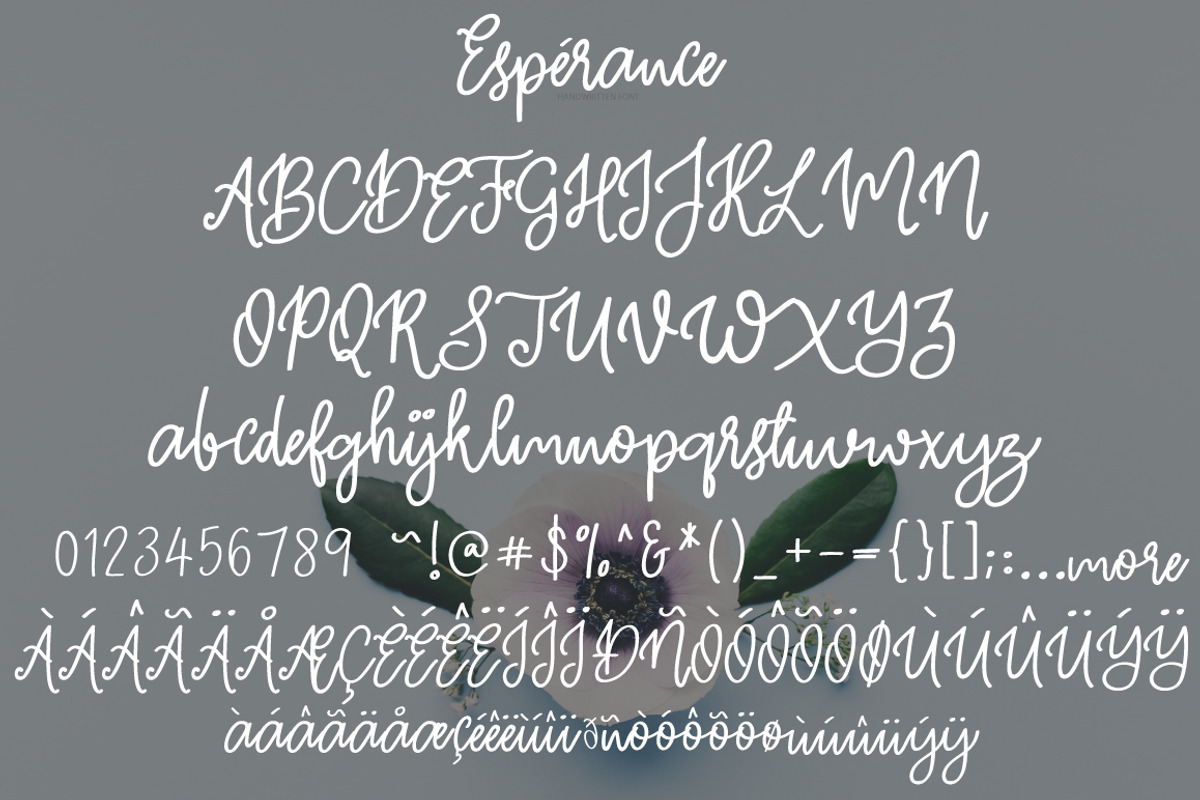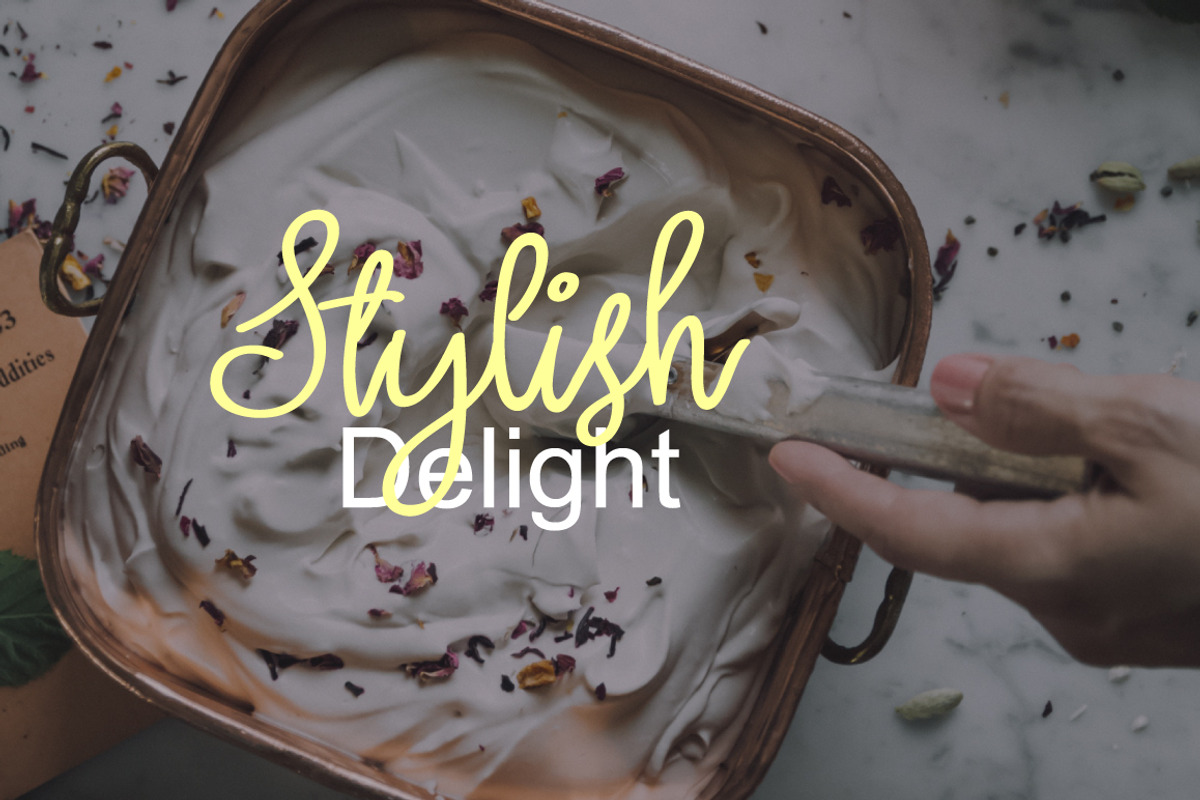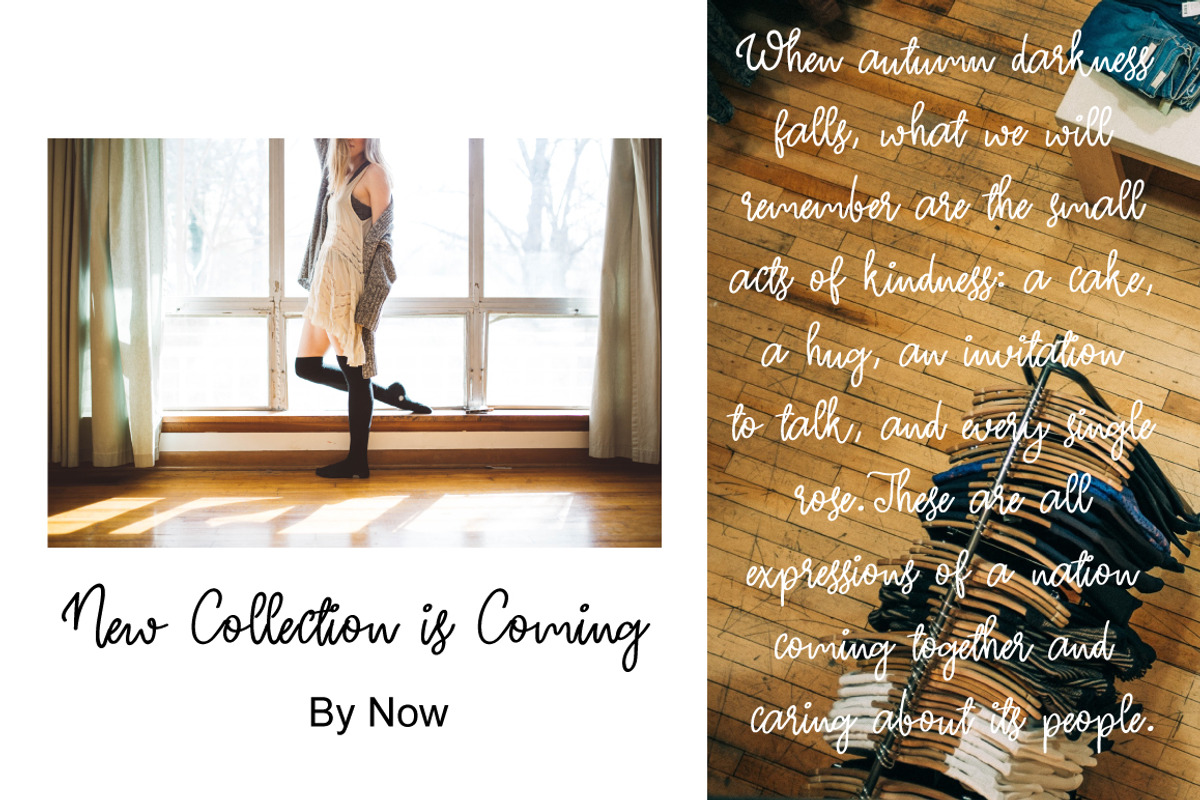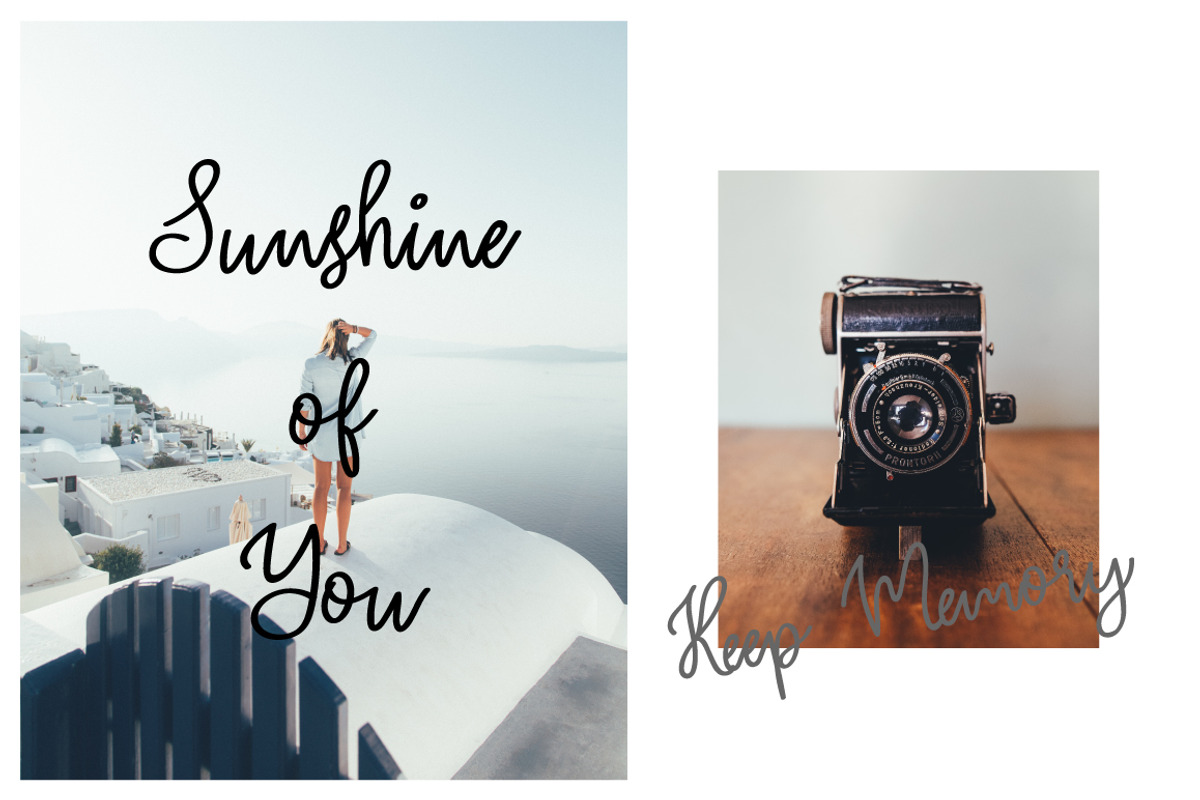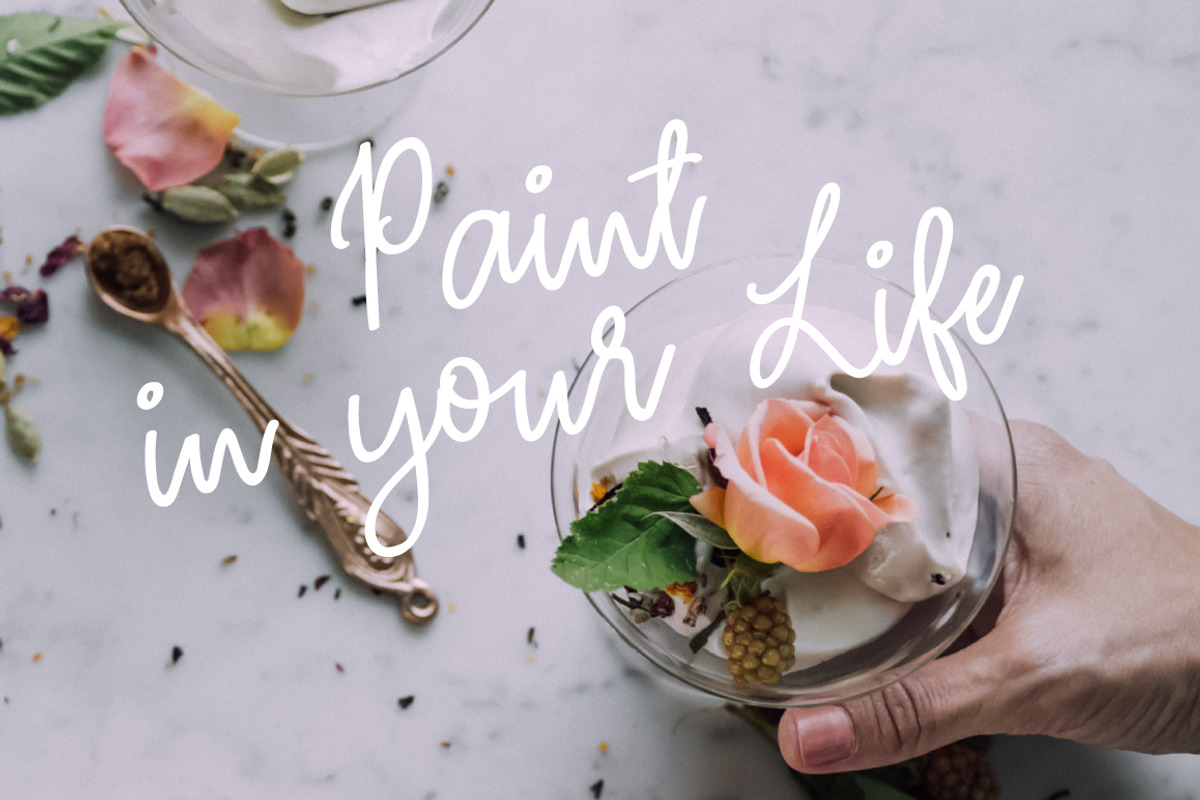
Esperance | Handwritten Font
it's handwritten script font.
This font a perfect for every project, wedding invitation or your blog. Also with their help, you can create a logo or beautiful frame for your home. Or just use for your small business, book covers, stationery and more.
Esperance | Handwritten Font by Artstudio fits naturally into Branding, posters, packaging, typography.